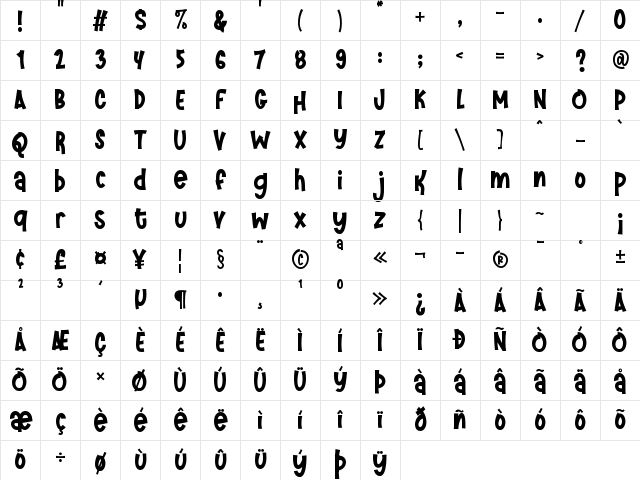
Garden Flower Regular Free Font
Garden Flower Regular
Foundry: Dm Letter Studio
Designer: Dimas Prasetyo
Design Context for Garden Flower
Garden Flower is a composed and adaptable typeface that performs quietly and consistently across a wide range of design contexts.
Pro Tip: Use Garden Flower in both headline and body roles to test its range before committing to a single application.